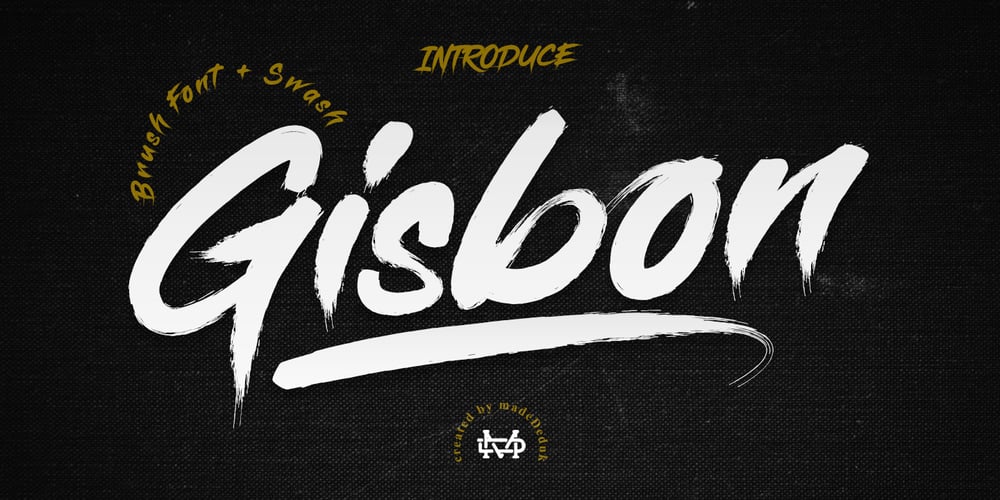
Gisbon Font Family was designed by Suandana ipandemade and published by madeDeduk. Gisbon contains 1 styles and family package options. Gisbon is a modern brush typeface. This font is perfect for poster design, book covers, merchandising, fashion campaigns, newsletters, branding, advertising, magazines, greeting cards, album covers, quote designs and more. Includes: – Uppercase – Lowercase – Numbers & Symbols – International Glyphs – Alternative Uppercase – Alternative lowercase – Swash If you need anything else or you require an upgraded license please contact dedukvic@gmail.com